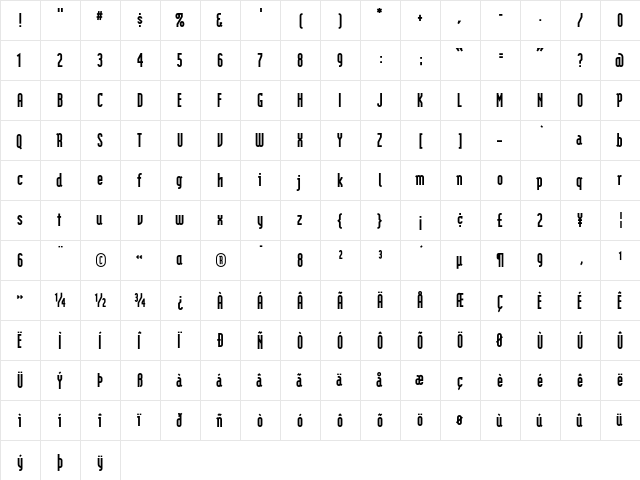
ModulaBlack Regular
Design Context for ModulaBlack Typeface
ModulaBlack takes a measured approach to typography — its balanced proportions and neutral character make it a reliable workhorse for both digital and print work.
Pro Tip: Use ModulaBlack in both headline and body roles to test its range before committing to a single application.